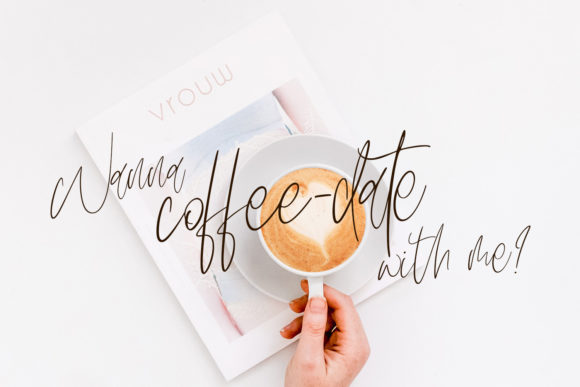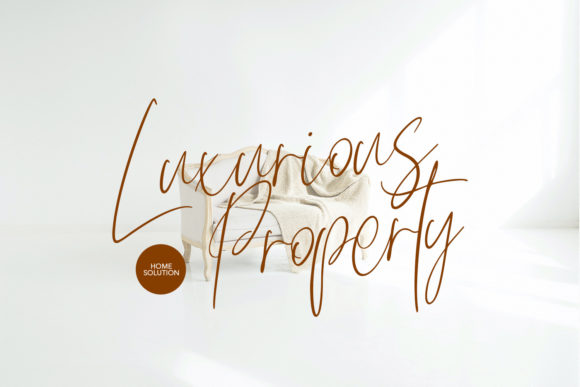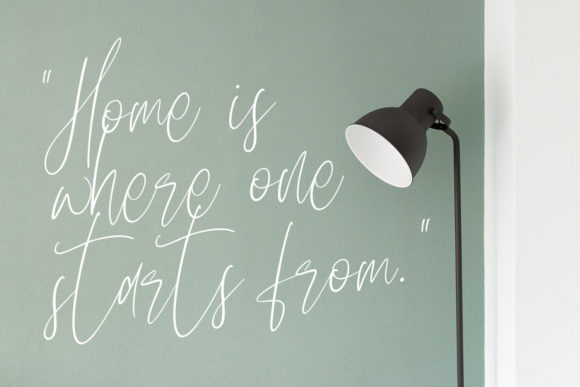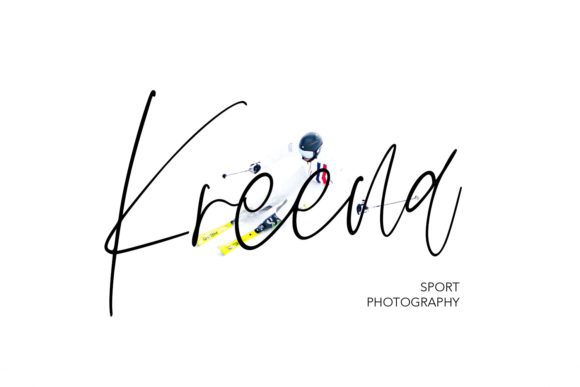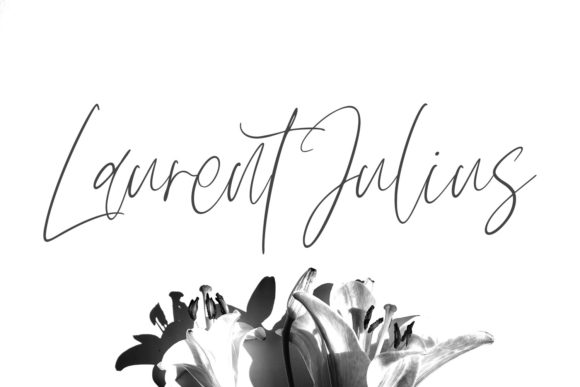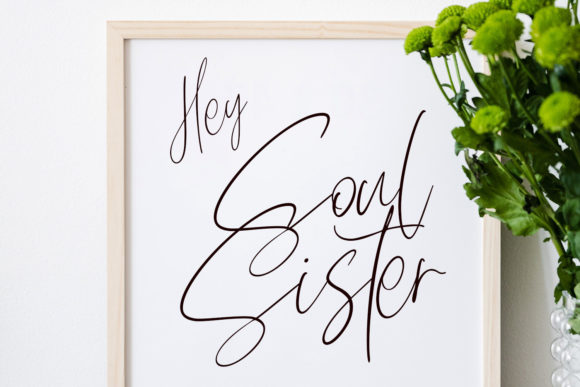
Introduction to Mellodyst Font
Mellodyst is a thin, flowing and delicate script font.
This versatile script font has a wide spectrum of applications ranging from greeting cards to headlines and is guaranteed to add a romantic feel to your next project .